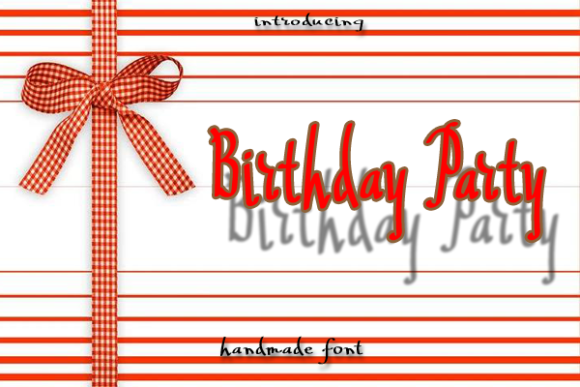
Introducing Birthday Party Font: Elevate Your Creative Projects with Elegance
Are you on the lookout for a font that adds a touch of magic and elegance to your creative projects? Look no further than the Birthday Party Font, a beautiful script font designed to transform your ideas into stunning pieces of art. Whether you’re a designer, crafter, or social media enthusiast, this versatile font is sure to become your new go-to.
The Birth of a Magical Font
Birthday Party Font is more than just a collection of letters; it’s a tool for creativity, designed with a meticulous attention to detail to ensure that every character exudes elegance and charm. This script font is perfect for anyone looking to add a personal touch to their projects, whether it’s a DIY craft, a social media post, or a professional design.
Why Choose Birthday Party Font?
- Elegance and Versatility: The Birthday Party Font boasts a unique blend of sophistication and playfulness, making it suitable for a wide range of projects, from birthday invitations to fashion branding.
- Easy to Read and Write: Despite its elegant appearance, this font maintains excellent readability, ensuring that your messages are conveyed clearly and effectively.
- Perfect for Digital and Print: Whether you’re designing for screen or print, the Birthday Party Font adapts beautifully, ensuring your work looks great across all mediums.
- DIY Friendly: For crafters and DIY enthusiasts, this font is a dream come true. Use it for calligraphy projects, handmade cards, and personalized gifts to add a professional touch to your creations.
The applications of the Birthday Party Font are as limitless as your imagination. Designers can use it to create stunning branding materials, elegant stationery, and captivating social media graphics. Crafters can incorporate it into their handmade projects, such as customized jewelry, home decor, and of course, beautiful calligraphy pieces.
Using Birthday Party Font for Instagram and Social Media
In the age of visual storytelling, standing out on social media platforms like Instagram is crucial. The Birthday Party Font can help elevate your feed with its distinctive style. Use it to create eye-catching posts, stories, and even custom Instagram bio quotes that reflect your personal brand or aesthetic.
Incorporating Birthday Party Font into DIY Projects
For those who love getting hands-on, the Birthday Party Font can add a professional and personalized touch to any DIY project. Here are a few ideas:
- Handmade Cards and Invitations: Use the font for calligraphy to make one-of-a-kind invitations for parties, weddings, or baby showers.
- Customized Home Decor: Add a touch of elegance to your home with personalized wall art, quotes, or even customized cutlery and glassware.
- Artisan Jewelry: Incorporate the font into your jewelry designs through custom engravings or pendants with stamped letters.
The Birthday Party Font is a versatile and elegant script font that can elevate any creative project. Whether you’re a professional designer looking for a unique touch or a crafter aiming to add sophistication to your handmade goods, this font is sure to inspire. With its readability, versatility, and magical charm, Birthday Party Font is more than just a font – it’s a key to unlocking a world of creative possibilities.